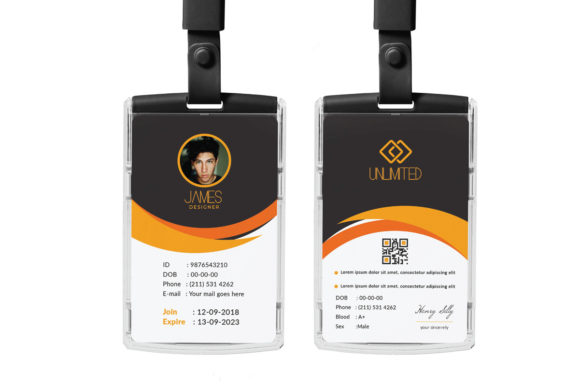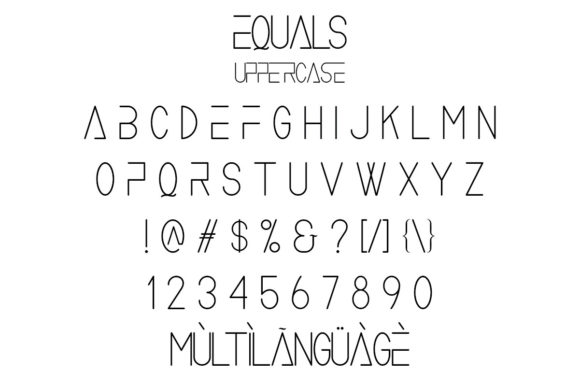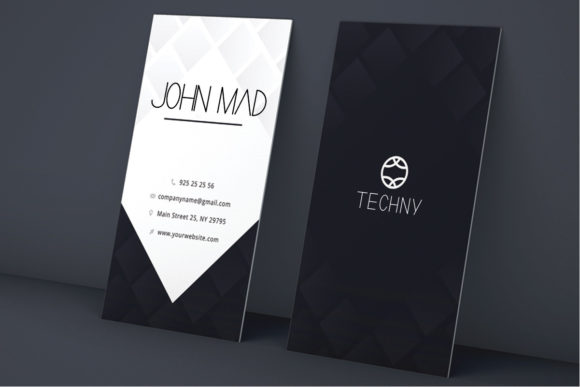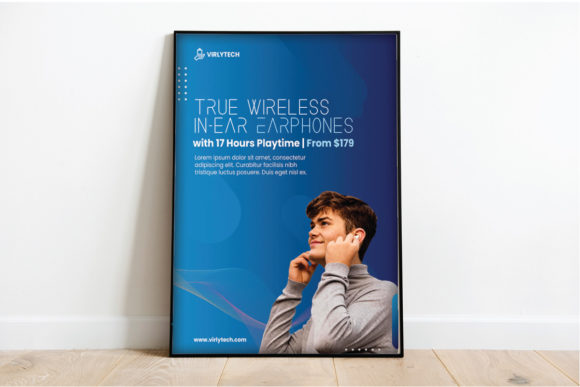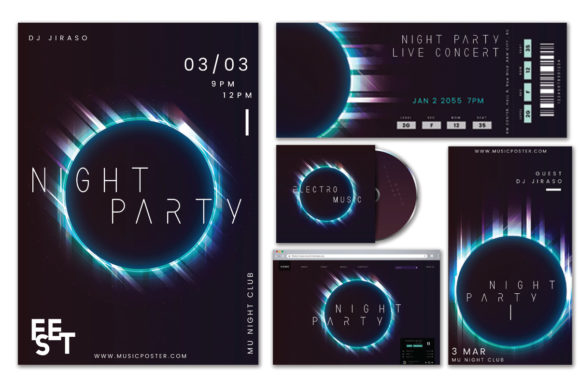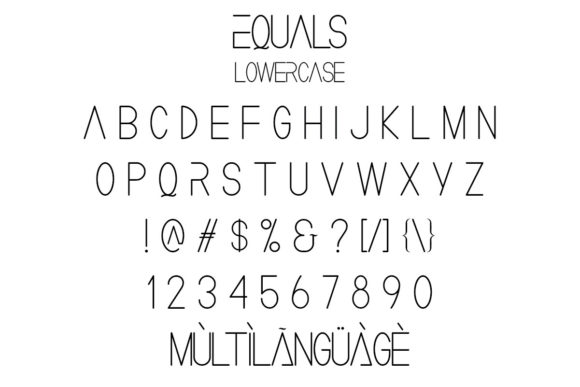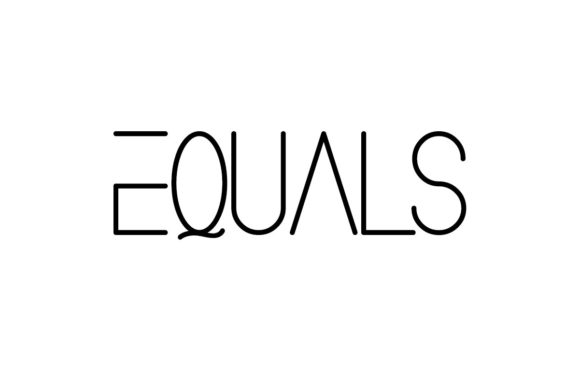
Introducing Equals Font: The Modern Display Font for Minimalist Designs
In the world of typography, fonts play a crucial role in conveying the message and aesthetic of a design. For designers and crafters looking for a modern and cool display font, Equals Font is an excellent choice. This font is specifically designed to add a touch of minimalism to various design projects, making it ideal for writing web designs, business cards, or any other visual material that requires a clean and sleek look.
What is Equals Font?
Equals Font is a modern display font that boasts a clean and minimalist design. Its simplicity and elegance make it perfect for designers who want to create visually appealing designs without overwhelming the viewer. The font features a unique and stylish design, with carefully crafted letterforms that ensure excellent readability and legibility.
Key Features of Equals Font
- Modern and Cool Design: Equals Font has a contemporary look that will elevate your designs and make them stand out.
- Minimalist Touch: The font’s clean and simple design makes it perfect for adding a touch of minimalism to your projects.
- High Readability: The carefully crafted letterforms ensure that your text is easy to read, even at small sizes.
- Versatile: Equals Font can be used for a wide range of design projects, from web designs and business cards to posters and flyers.
Why Choose Equals Font?
There are many reasons why Equals Font is an excellent choice for designers and crafters. Here are a few:
- Unique Design: Equals Font has a distinctive design that will set your projects apart from others.
- Pair it with Other Fonts: Equals Font works well with other fonts, so feel free to experiment with different combinations to create a unique look.
- Use it for Headings and Titles: Equals Font is perfect for headings and titles, where its modern and cool design can make a significant impact.
In conclusion, Equals Font is an excellent choice for designers and crafters looking for a modern and cool display font. Its minimalist design, high readability, and versatility make it perfect for a wide range of design projects. With its ease of use, compatibility, and excellent support, Equals Font is a valuable addition to any designer’s toolkit.